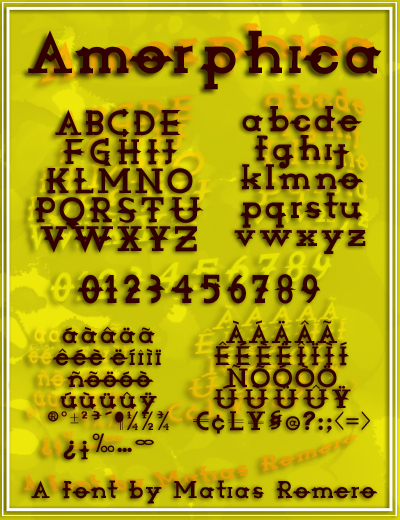
Amorphica by Matias Romero is a free decorative display font with swollen forms, sharp notches, and wildly shifting widths. The letters seem stretched and pinched in different directions, mixing blunt slabs with hooked points and irregular internal shapes.
Its psychedelic poster character suits music artwork and experimental event graphics, where the distorted silhouettes can become part of the image. It also makes an unusual fit for fashion packaging or editorial covers built around surreal lettering. Designers working for alternative bands, arts venues, and youth-focused labels will find its unruly forms especially relevant.
Amorphica
Matias Romero